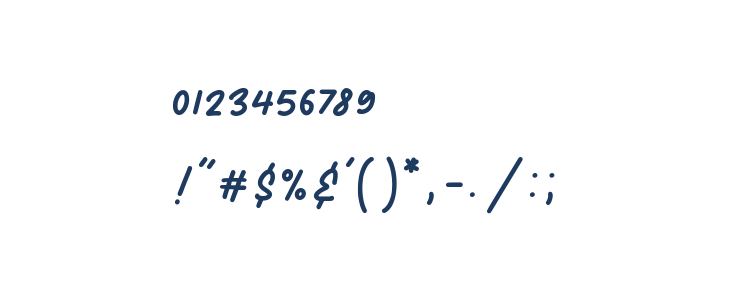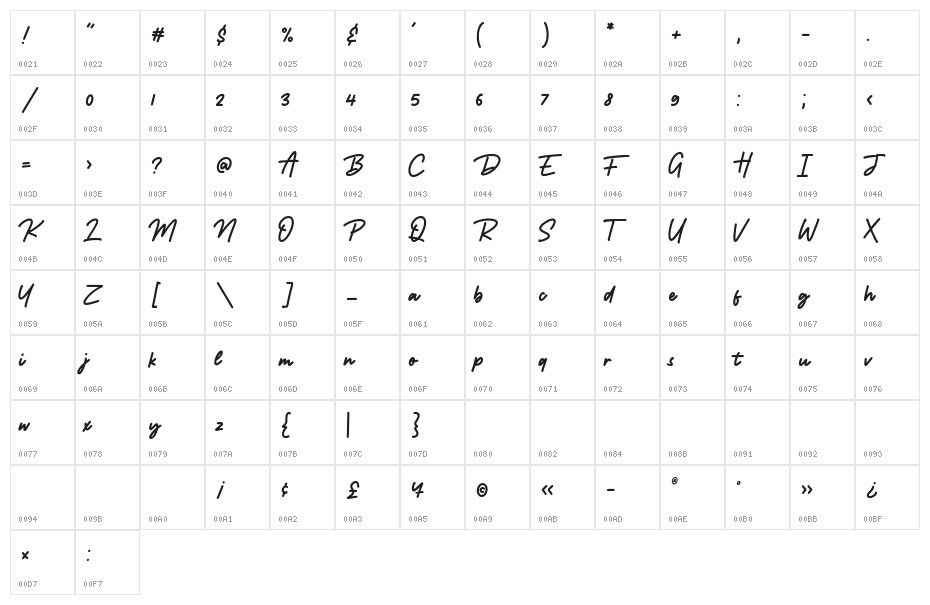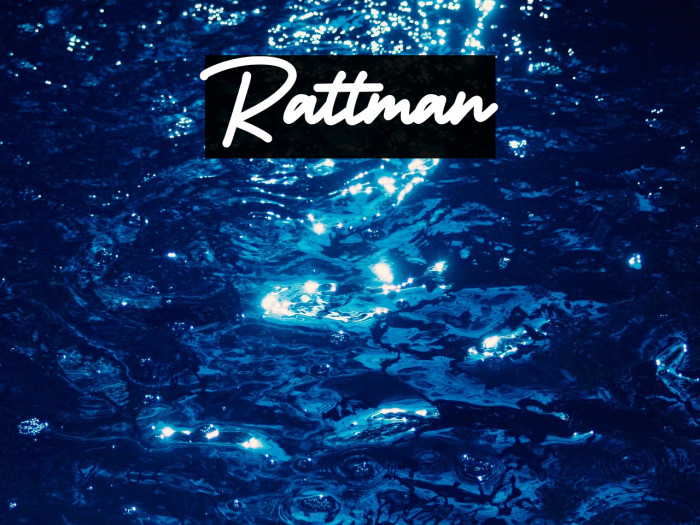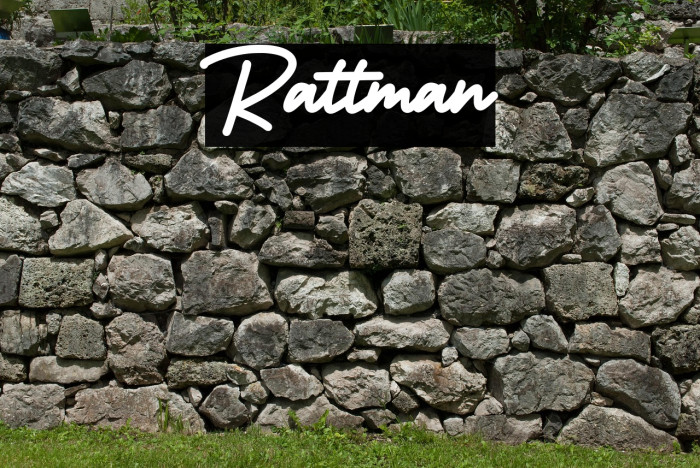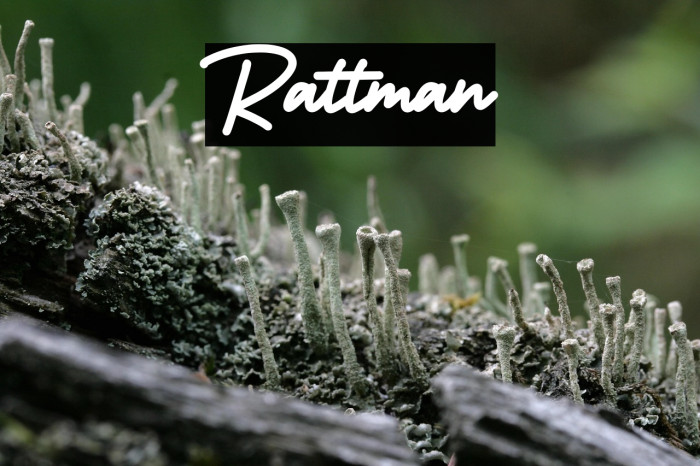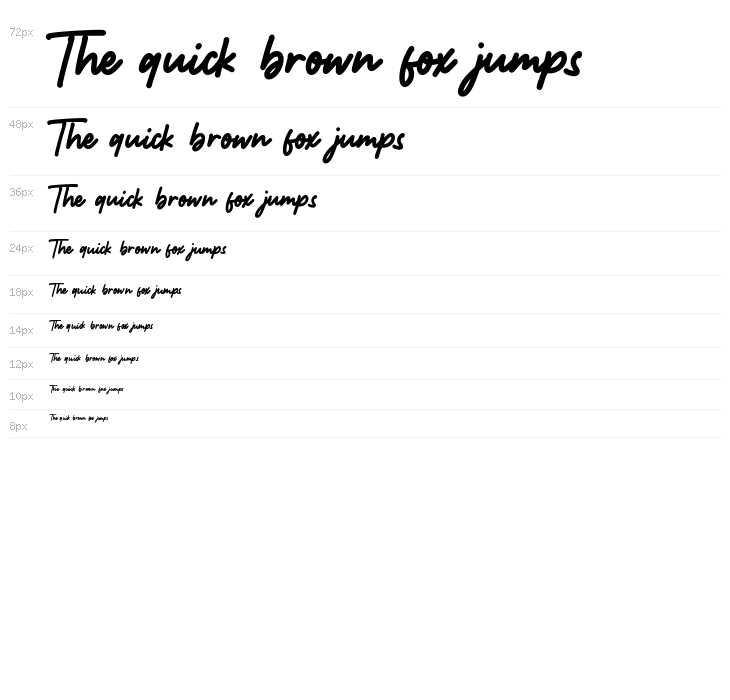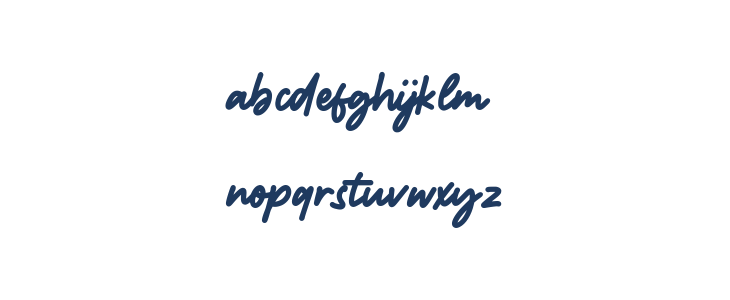
Rattman Font
This font features a dynamic and fluid script style, characterized by its smooth, flowing lines and slightly slanted letters. The uppercase letters are bold and prominent, while the lowercase letters maintain a consistent flow, enhancing readability. The numerals and special characters complement the overall design with their cohesive style. The strokes are moderately thick, providing a balanced contrast that ensures clarity without sacrificing elegance. This font exudes a casual yet sophisticated vibe, making it versatile for various design needs.
| Use Case | Logos, Invitations, Greeting Cards |
| Proposed Projects | Ideal for invitations, greeting cards, branding, and logo design where a personal touch is desired. |